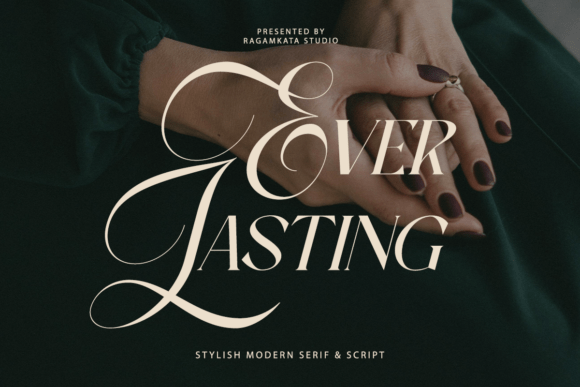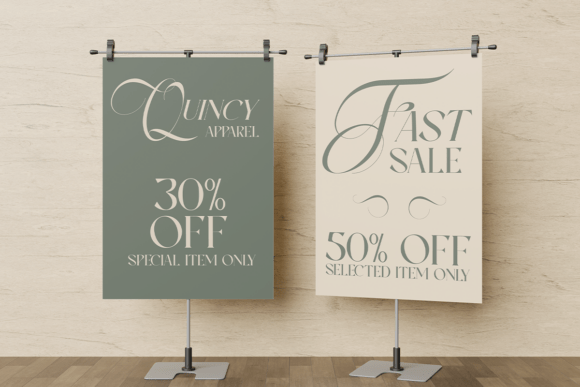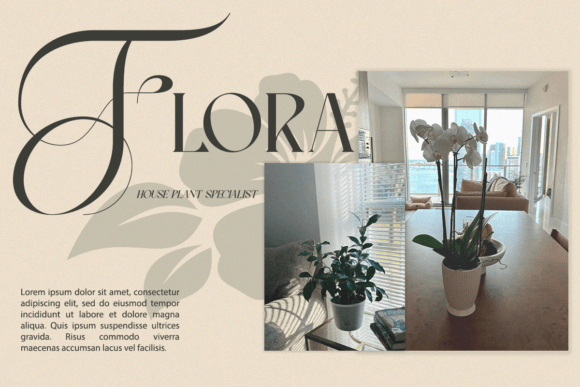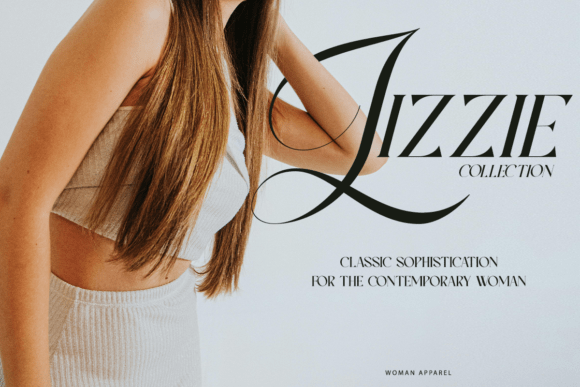
Discover the Timeless Elegance of Ever Lasting Font
As designers, we’ve all been there – staring at a blank page, trying to convey the perfect message to our audience. The right font can make all the difference. It’s the spark that ignites the creative process, the thread that weaves together the entire design. And for those seeking a truly unique voice, Ever Lasting Font is the answer.
This luxurious script and serif combination is more than just a font – it’s an experience. With its bold cursive strokes and refined serif details, Ever Lasting Font brings sophistication and flexibility to every project. Whether you’re a seasoned pro or a rising star, this elegant pairing is the perfect companion for your most ambitious designs.
Ever Lasting Font Key Features
- Unique Characteristics: Ever Lasting Font features a classic, timeless design with intricate details and subtle flourishes, making it perfect for formal invitations, wedding stationery, and luxury branding.
- Kerning and Ligatures: The font includes advanced kerning and ligature features, ensuring that text flows smoothly and professionally, even at small font sizes.
Ever Lasting Font Review
Ever Lasting Font is a beautiful, elegant script font that’s perfect for creating a sense of sophistication and luxury. ✨ I love how it flows and curves, making it ideal for titles, headings, and any other text where you want to add a touch of glamour. The font is highly customizable, with a wide range of weights and styles to choose from.
One of the things that stands out about Ever Lasting Font is its high level of legibility, even at small font sizes. ✨ It’s perfect for use on digital platforms, where text needs to be clear and easy to read. The font also has a wide range of language support, making it suitable for use in multilingual projects.
What doesn’t work so well:
- ⚠️ Can be a bit too ornate for some projects, overpowering the rest of the design.
- ⚠️ May require some tweaking to get the spacing and alignment just right.
Overall, I’m really impressed with Ever Lasting Font. It’s a great addition to any designer’s toolkit, and I can see myself using it a lot in the future. If you’re looking for a high-end, luxurious font that’s perfect for creating a sense of drama and sophistication, then Ever Lasting Font is definitely worth checking out.
Ever Lasting Font is ideal for creating elegant and sophisticated designs, such as:
– Luxury brand logos and packaging
– High-end marketing materials and brochures
For optimal results, use Ever Lasting Font in conjunction with high-quality images and graphics.